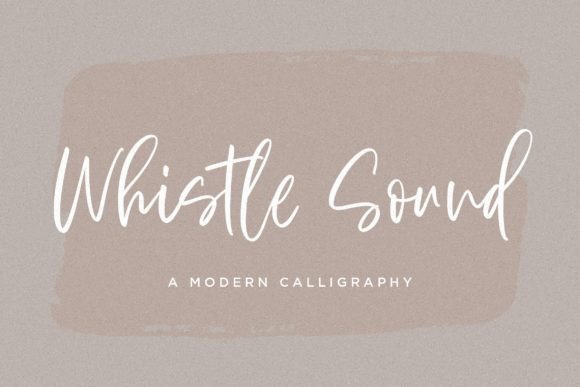
Welcome to the enchanting world of Whistle Sound, where calligraphy and artistry intertwine to create a symphony of visual delight. This breathtaking script font, crafted by the visionary Balpirick, is a masterpiece that will elevate your creative projects to new heights.
Immerse yourself in the world of Whistle Sound and experience the allure of a font that dances gracefully across the page. Its flowing strokes, reminiscent of a gentle breeze, will add a touch of elegance and sophistication to your designs. Whether you're crafting heartfelt greeting cards, designing eye-catching logos, or creating stunning digital art, Whistle Sound is your perfect companion.
Unleash your creativity with Whistle Sound's versatility. Its ability to seamlessly blend with various design aesthetics makes it a true chameleon, adapting effortlessly to your unique vision. From modern and minimalist designs to whimsical and playful creations, Whistle Sound will enhance your projects with a touch of timeless beauty.
Take your string art projects to the next level with Whistle Sound. Its carefully crafted characters, designed with intricate details, add depth and dimension to your creations. Imagine the awe-inspiring sight of your string art masterpieces, adorned with the captivating curves and flourishes of Whistle Sound. Elevate your handmade gifts and home décor with this font's undeniable charm.
Whistle Sound is more than just a font; it's an invitation to explore the realms of imagination and creativity. Its enchanting aura will captivate your audience, leaving them spellbound by the beauty of your designs. Embrace the power of Whistle Sound and transform your creative endeavors into extraordinary works of art.